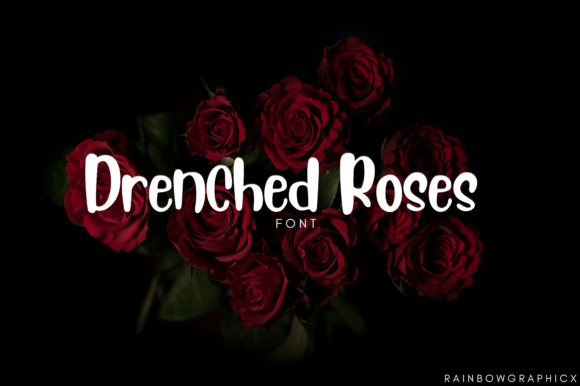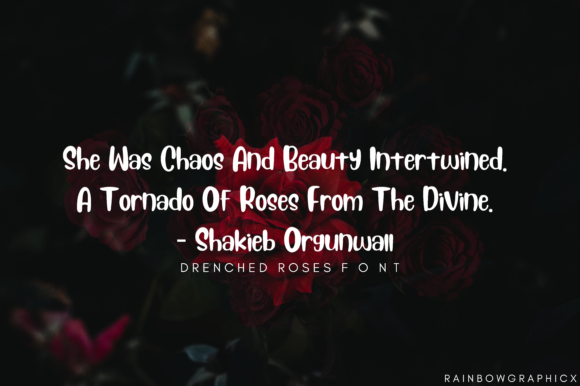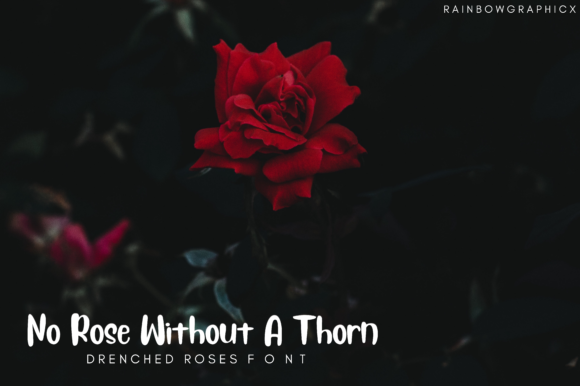
HomeScript FontsDrenched Roses Font Script Fonts Drenched Roses Font FacebookXPinterestWhatsApp Drenched Roses Font Poster 2 Drenched Roses Font Poster 3 About Drenched Roses Font Drenched Roses is a bouncy and weird script font with a cool twist. Get inspired by its unique style. DOWNLOAD ON CREATIVE FABRICAThis font is sold and delivered by Creative Fabrica. Font Canyon may earn a commission if you buy through this link. People also explored Random Blobs 1 Font Night in Madrid Font Viper Monogram Himalaya Wind Font Mr. Fix It Font Enchanting Font AZ Ultra Font Amatir Font ZP Seaside Font 371 0 TagsDrenched Roses Font Previous articleSeiroetan FontNext articleRobert Buso Font LEAVE A REPLY Cancel reply Comment: Please enter your comment! Name:* Please enter your name here Email:* You have entered an incorrect email address! Please enter your email address here Website: Save my name, email, and website in this browser for the next time I comment. Personal Use Free Gardening Personal Use Free Read more about this font Dear Monita Personal Use Free Read more about this font Sweet Someday Personal Use Free Read more about this font Multicolore Personal Use Free Read more about this font BLOG Fonts That Capture the Spirit of New York City New York City is more than just a place—it’s an experience, a rhythm, a visual language... Exploring Font Trends Free Fonts Risk: Why Free Fonts Can Be Dangerous for Designers Elegant Wedding Invitation Fonts – Handwritten & Script Fonts